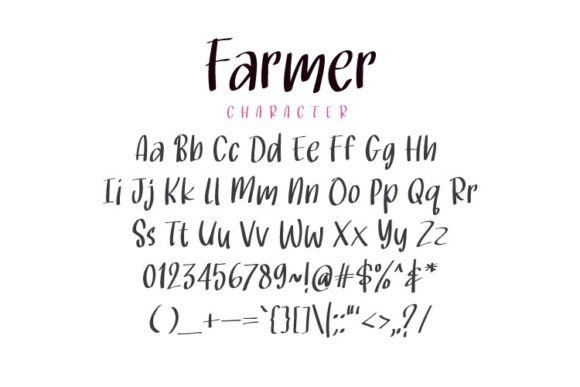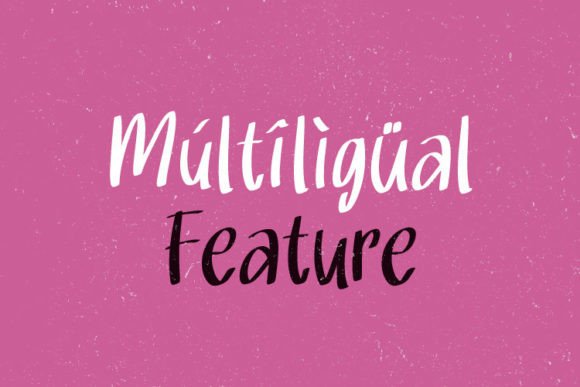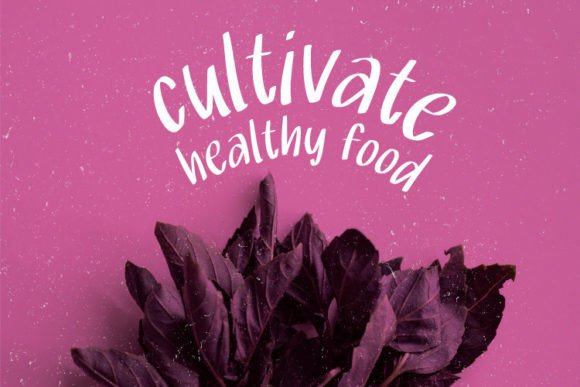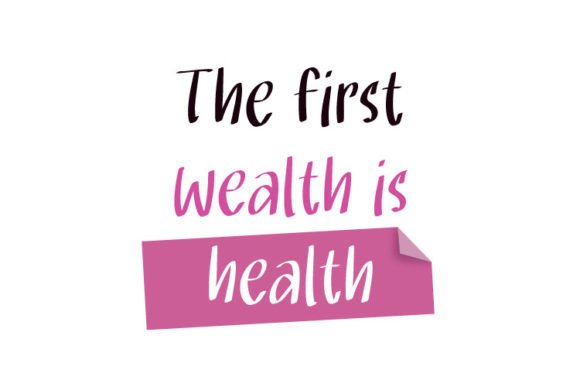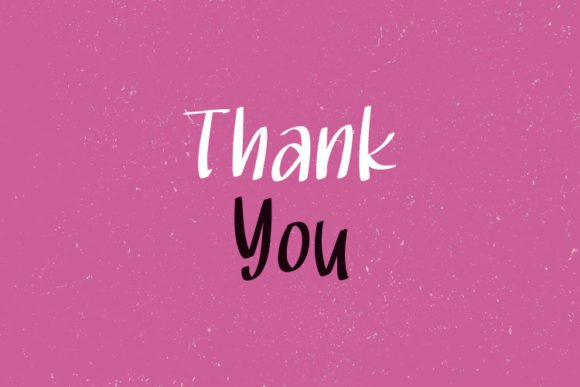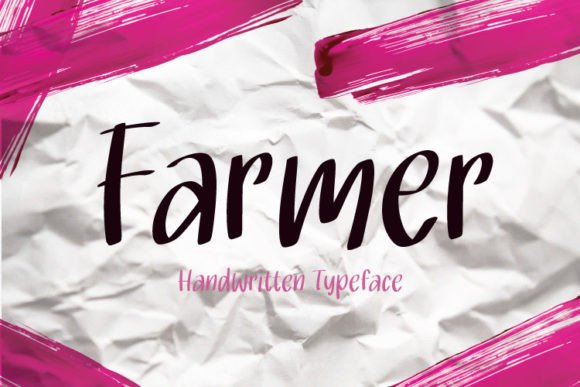
Introducing Farmer Font: The Perfect Handwritten Font for Your Designs
Are you a designer or crafter looking for a font that can add a personal and realistic touch to your designs? Look no further than Farmer Font! This clean, cute, and adaptable handwritten font is perfect for a variety of design projects, from rustic and vintage-themed designs to modern and playful ones.
What Makes Farmer Font Special?
Farmer Font stands out from other fonts due to its unique and authentic vibe. Its handwritten style gives it a personal and realistic feel that can make your designs stand out. The font is clean and easy to read, making it perfect for use in a variety of design projects, including:
• Logos and branding materials
• Signs and posters
• Packaging and labeling
• Invitations and greeting cards
Key Features of Farmer Font
Here are some of the key features that make Farmer Font a great choice for your designs:
• Clean and easy to read: The font is clear and legible, making it perfect for use in a variety of design projects.
• Cute and playful: The handwritten style of the font gives it a playful and charming feel that can add a personal touch to your designs.
• Adaptable: Farmer Font can be used in a variety of design projects, from rustic and vintage-themed designs to modern and playful ones.
• Authentic vibe: The font has a genuine and realistic feel that can make your designs stand out.
How to Use Farmer Font in Your Designs
Using Farmer Font in your designs is easy! Here are some tips to get you started:
• Pair it with other fonts: Farmer Font can be paired with other fonts to create a unique and interesting look. Try pairing it with a bold font for a playful contrast.
• Use it in headings and titles: The font is perfect for use in headings and titles, where its playful and charming feel can add a personal touch.
• Add some texture: To give your designs a more rustic and vintage feel, try adding some texture to the font. This can be done using a texture overlay or by adding a subtle background image.
Benefits of Using Farmer Font
Here are some of the benefits of using Farmer Font in your designs:
• Unique and distinctive: The font has a unique and distinctive style that can make your designs stand out.
• Easy to read: The font is clear and legible, making it perfect for use in a variety of design projects.
• Versatile: Farmer Font can be used in a variety of design projects, from rustic and vintage-themed designs to modern and playful ones.
• Time-saving: The font is ready to use, saving you time and effort in creating your own custom font.
In conclusion, Farmer Font is a clean, cute, and adaptable handwritten font that can add a personal and realistic touch to your designs. Its unique and authentic vibe makes it perfect for use in a variety of design projects, from rustic and vintage-themed designs to modern and playful ones. With its ease of use and versatility, Farmer Font is a great choice for designers and crafters looking to add a personal touch to their designs.